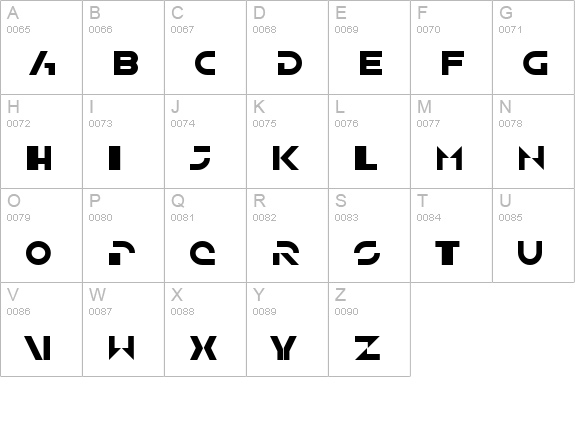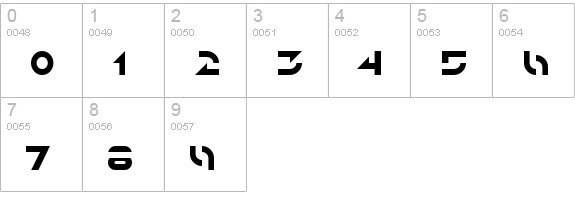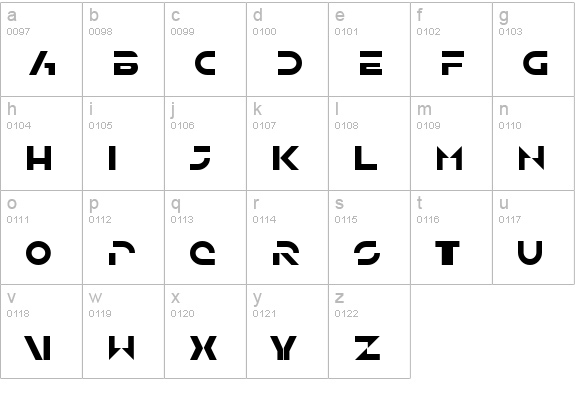
SF Solar Sailer Font Details
SF Solar Sailer font is a mesmerizing typeface that seamlessly fuses futuristic aesthetics with a touch of elegance. Its sleek and streamlined design captures the essence of space exploration, making it the perfect choice for any project that seeks to convey a sense of innovation and discovery. This font is a true masterpiece, meticulously crafted to embody the spirit of adventure and limitless possibilities. Its clean lines and geometric forms evoke a sense of precision and sophistication, while its unique letter shapes add a hint of playfulness and creativity. SF Solar Sailer font is not only visually stunning, but it also offers exceptional legibility, ensuring that your message will be conveyed with utmost clarity. Each letter is meticulously balanced, allowing for seamless reading experiences across various mediums. What sets SF Solar Sailer font apart is that it is freely available to download at FontsMarket.com. This means that you can effortlessly add this remarkable typeface to your design arsenal without any cost. Whether you are a professional designer, a student, or simply someone with a passion for typography, SF Solar Sailer font is an invaluable asset that will enhance your creative endeavors. With its versatility and striking visual appeal, SF Solar Sailer font is suitable for a wide range of design projects. From logos and branding materials to websites and posters, this font will elevate your creations to new heights. Its futuristic allure is particularly well-suited for science fiction, technology, and space-themed designs. Embrace the future of typography with SF Solar Sailer font. Download it for free at FontsMarket.com and embark on a journey of limitless design possibilities. Let this font be your guiding light as you explore uncharted territories in the world of typography.